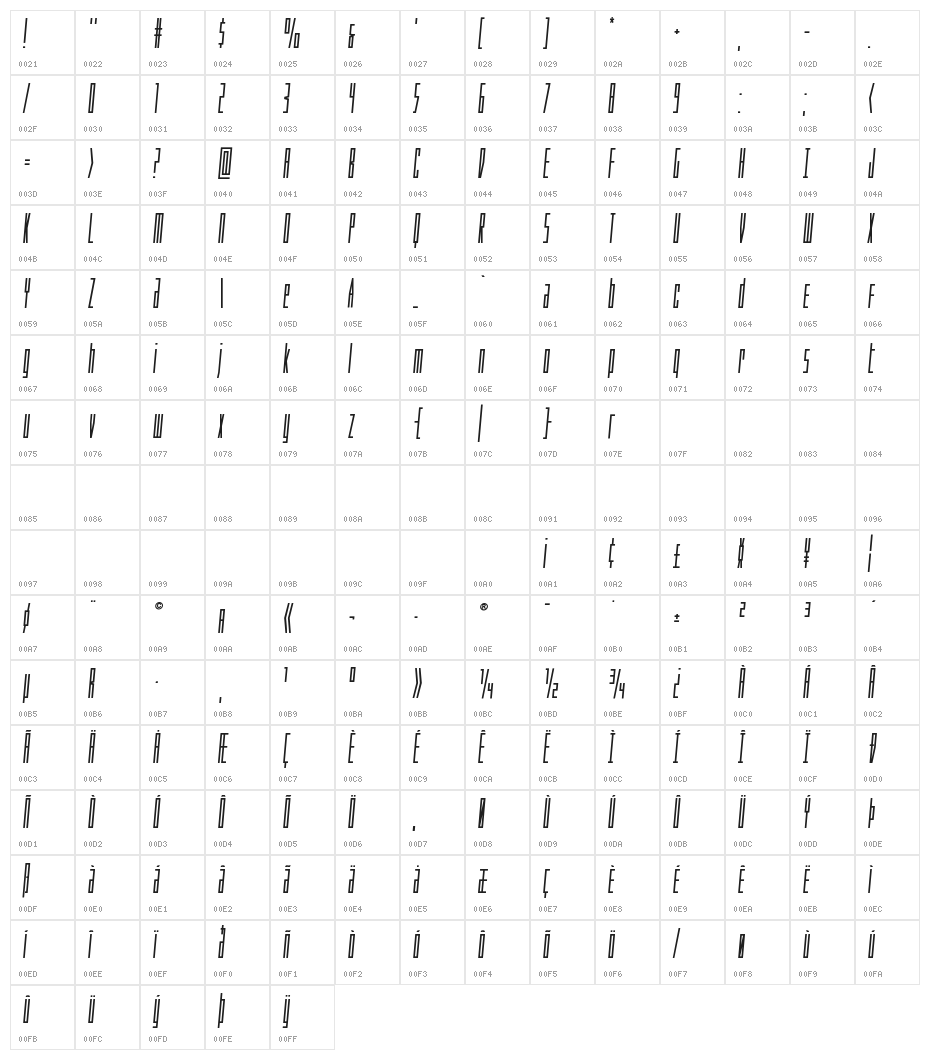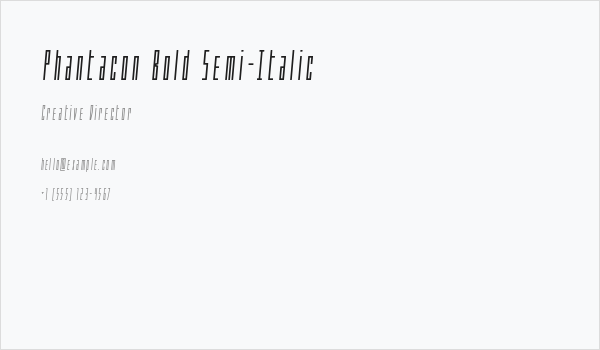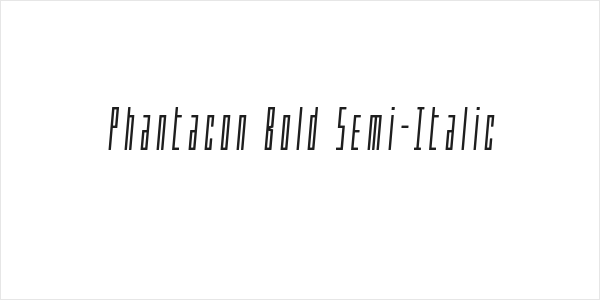
Phantacon Bold Semi-Italic Font
Phantacon Bold Semi-Italic Description
This font features a bold and semi-italic style with a modern, futuristic flair. The characters are tall and narrow, with a distinct slant that adds a sense of motion and dynamism. The uppercase and lowercase letters maintain a consistent height, contributing to a uniform appearance. The numerals and special characters are designed to match the overall aesthetic, with sharp angles and clean lines. The font's geometric structure and elongated forms make it stand out, ideal for projects that require a contemporary and edgy look.
| Overall Style | Futuristic, Edgy |
| Proposed Projects | Ideal for sci-fi themed designs, technology branding, modern posters, and innovative product packaging. |